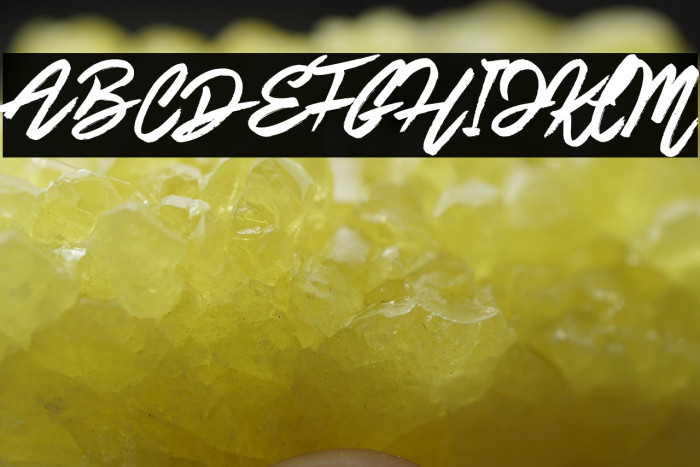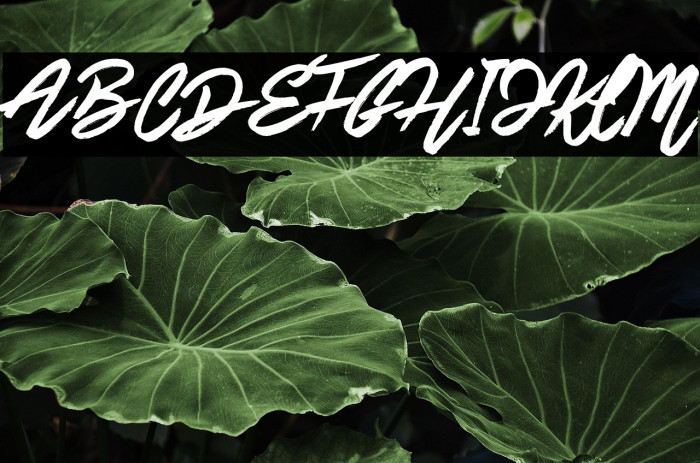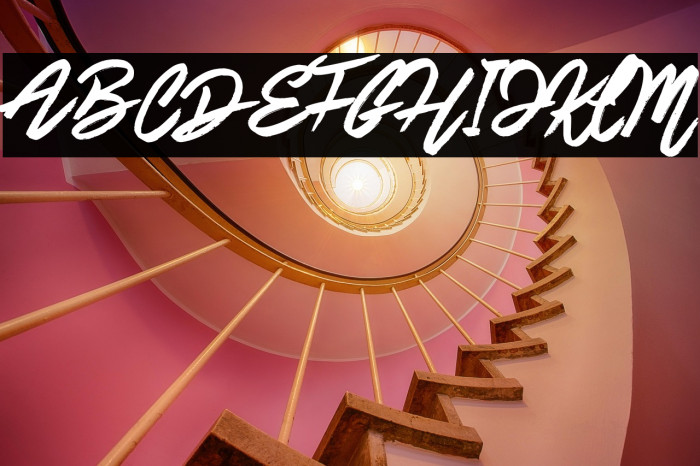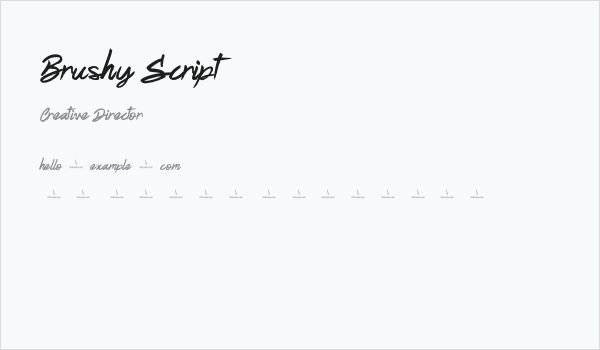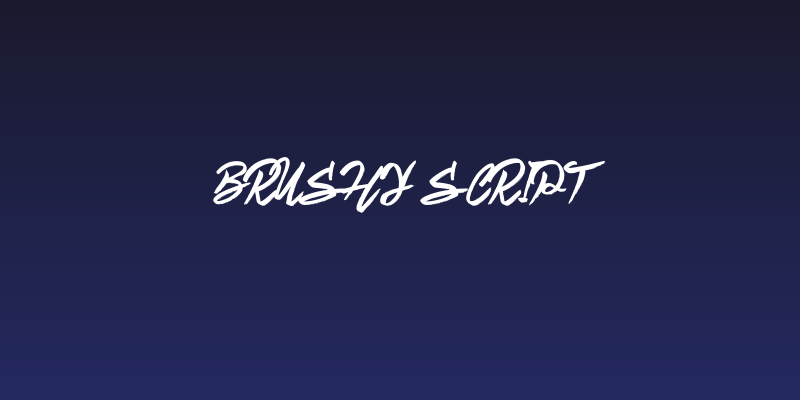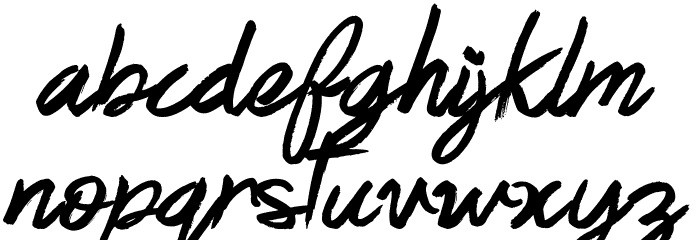
Brushy Script Font
Brushy Script Description
This font exudes a dynamic and energetic style, characterized by its bold, sweeping strokes that mimic the fluidity of brush calligraphy. Each letter is crafted with a sense of motion, giving the text a lively and expressive appearance. The uppercase and lowercase letters maintain a consistent flow, with the uppercase letters exhibiting a more pronounced flair. The font's design is both artistic and legible, making it suitable for creative projects that require a touch of elegance and personality. The characters are well-spaced, ensuring readability while maintaining the artistic integrity of the script.
| Proposed Projects | Ideal for branding, invitations, greeting cards, and artistic posters. |